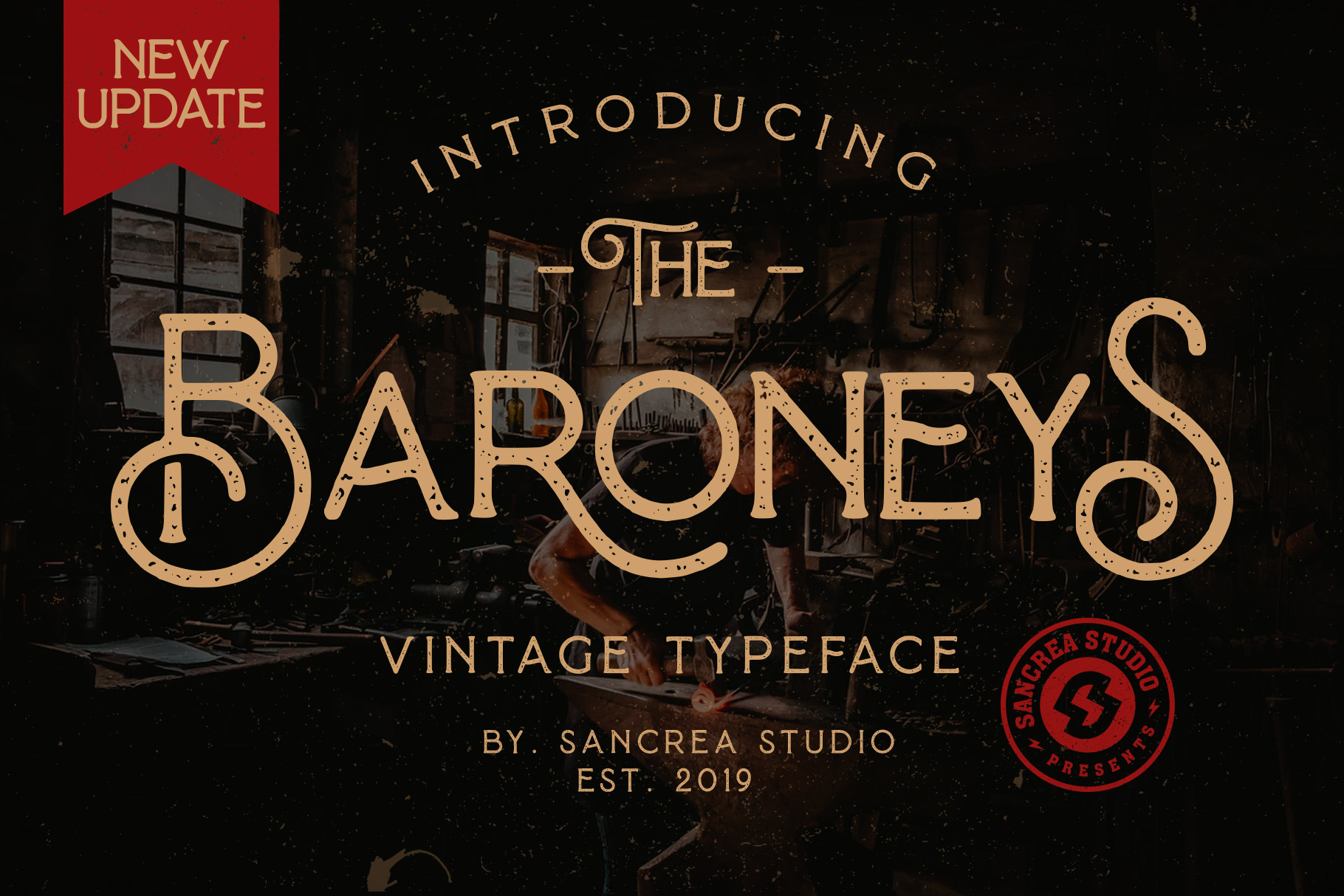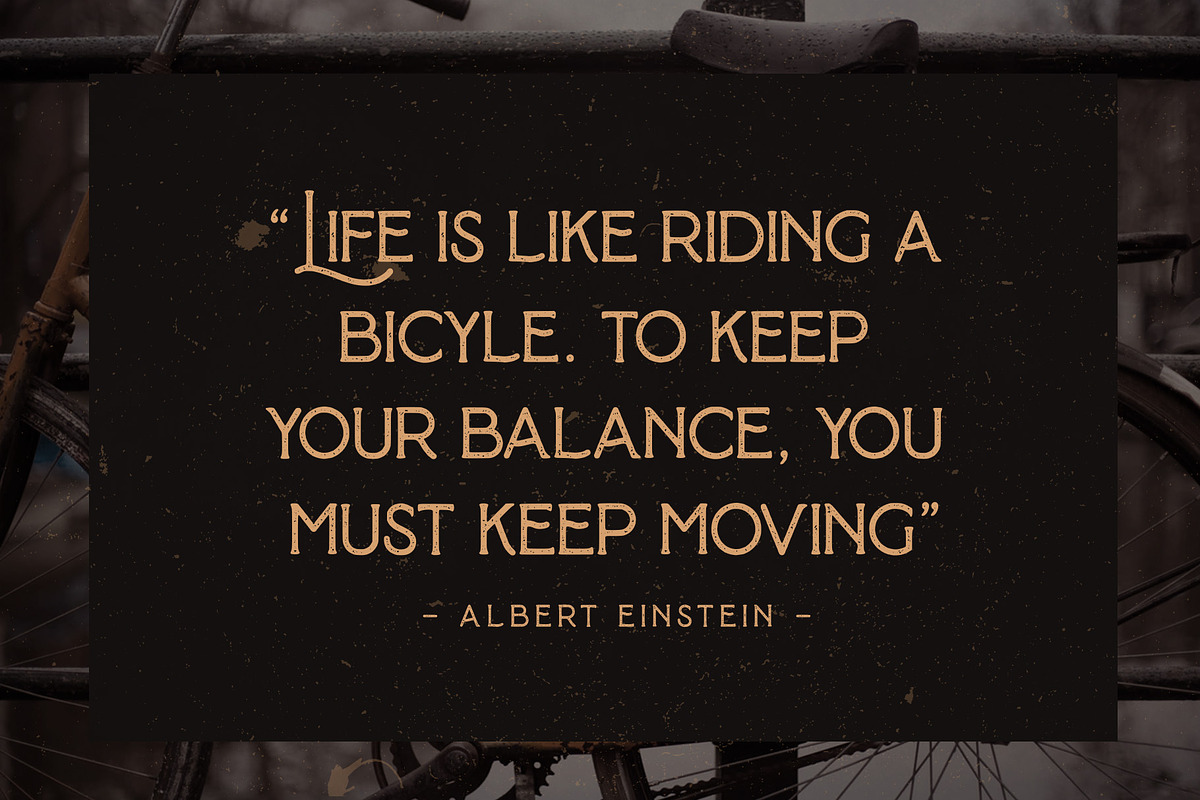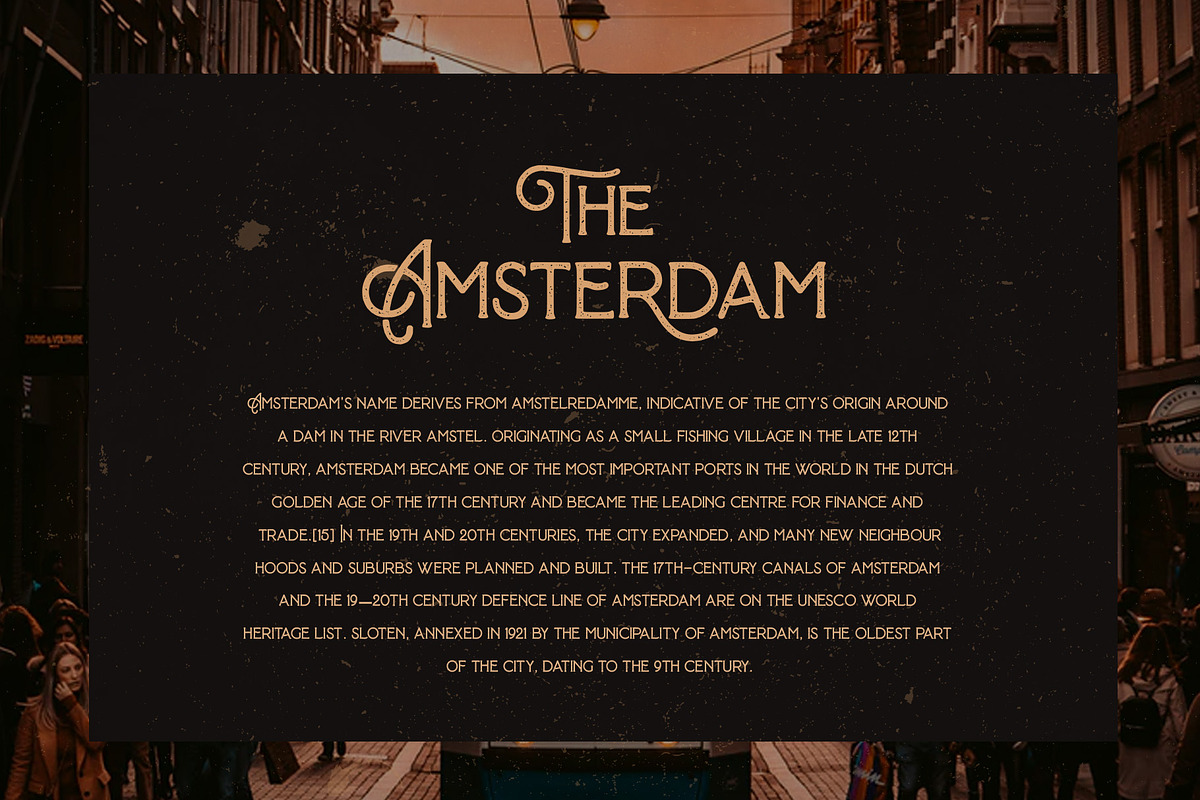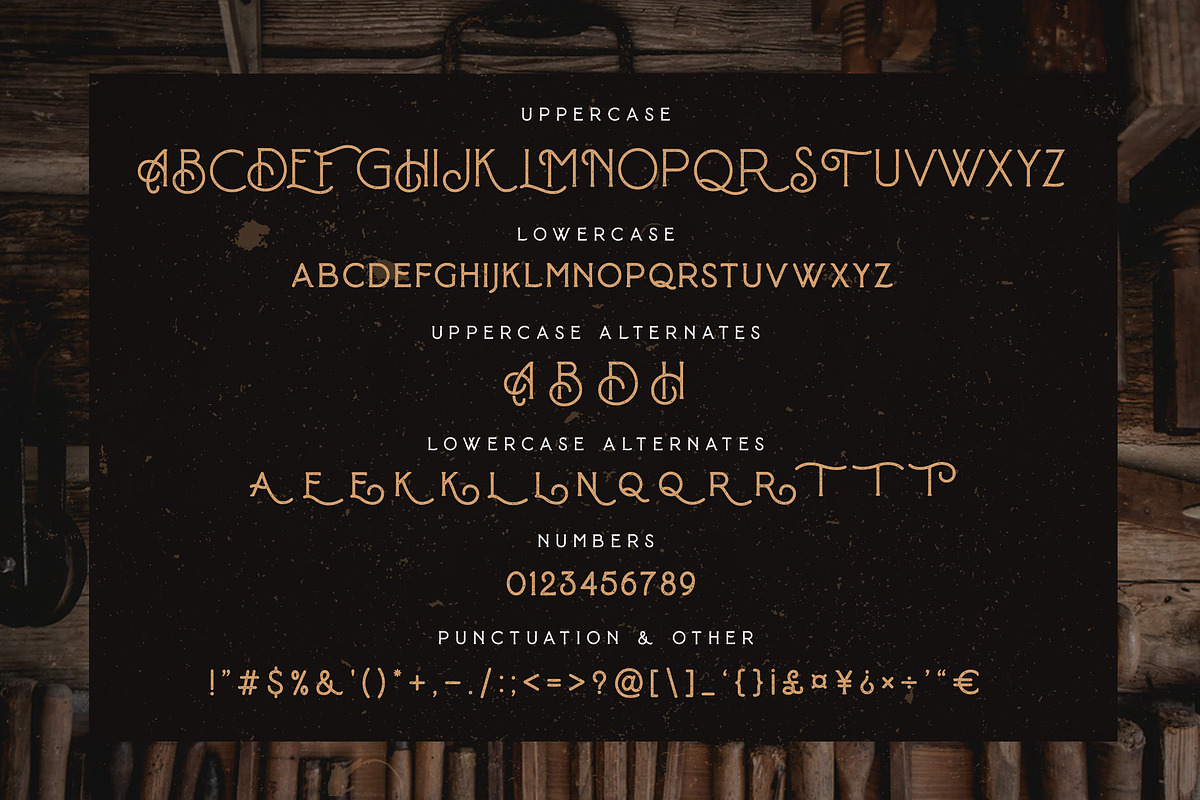
Baroneys - Vintage Typeface
Baroneys is a vintage serif font textured, suitable for your next creative project like suitable for art, modern envelope lettering or book design, poster, craft design, any Branding project, pop vintage designy.
- Character set A-Z with special uppercase letters
- 19 Stylistic Alternates